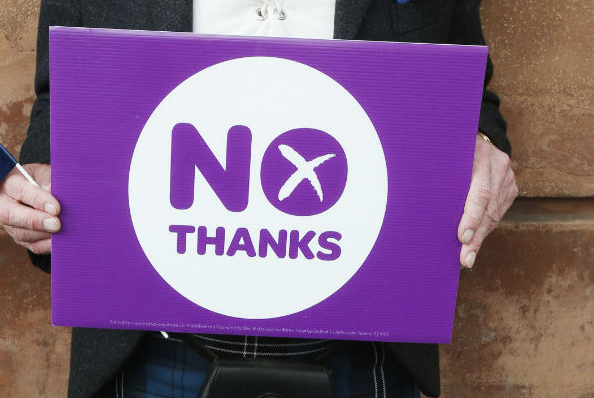
Scotland's referendum, the rounded font that won
By 55% to 45%, a majority of voters rejected the possibility of Scotland breaking away and becoming an independent nation in one of the most historic referendums ever. Scotland and the Highlanders will remain part of the United Kingdom -- along with England, Wales and Northern Ireland and the design that won will be obviously the rounded NO font. In the opposite YES sheds rock hard tears over its Helvetica Neue typeface. Well, the truth of the moment is round we guess. Read more at Wolff Olins blog post and share your thoughts. Fonts are a weapon of choice.